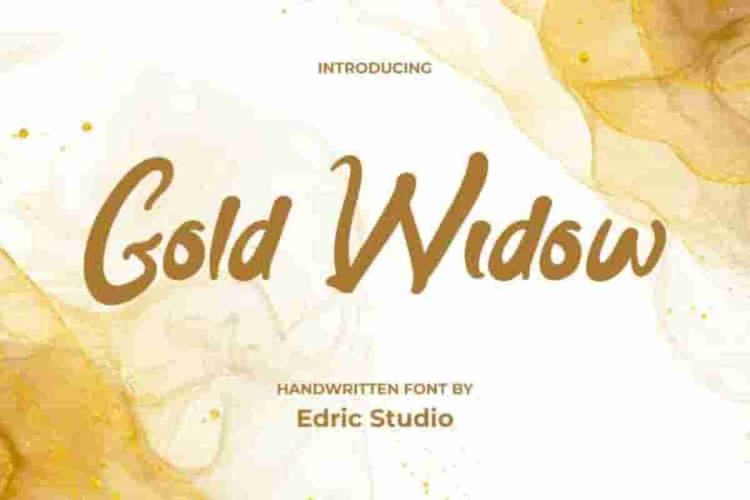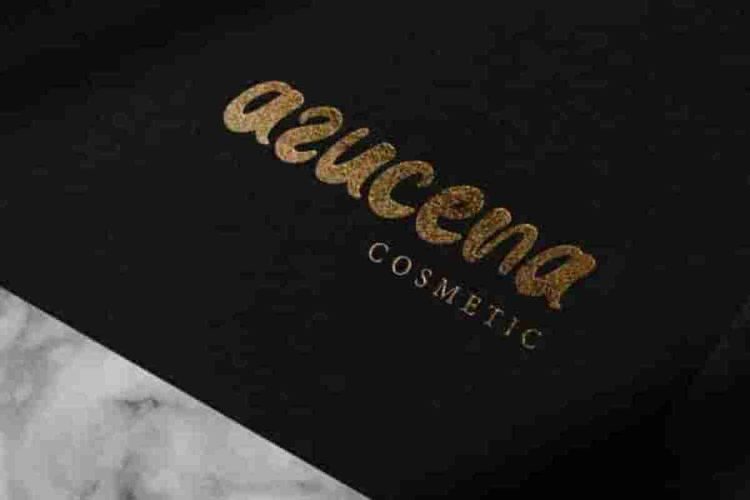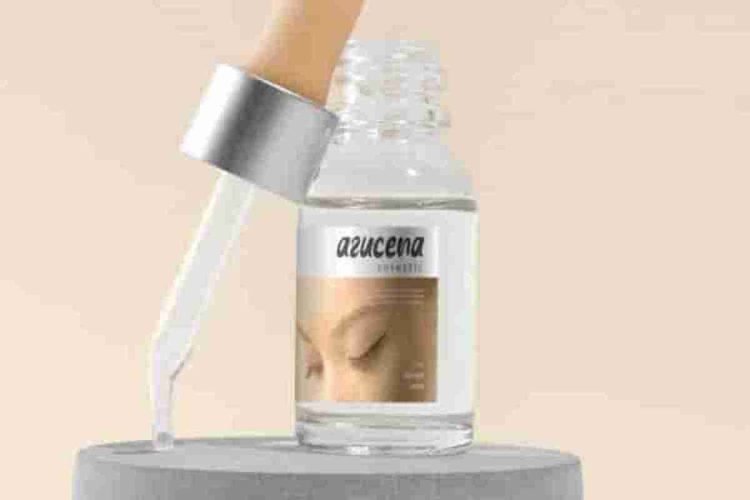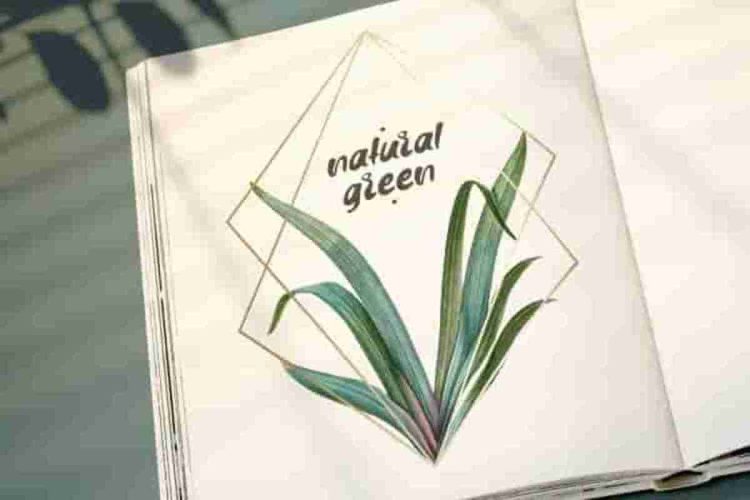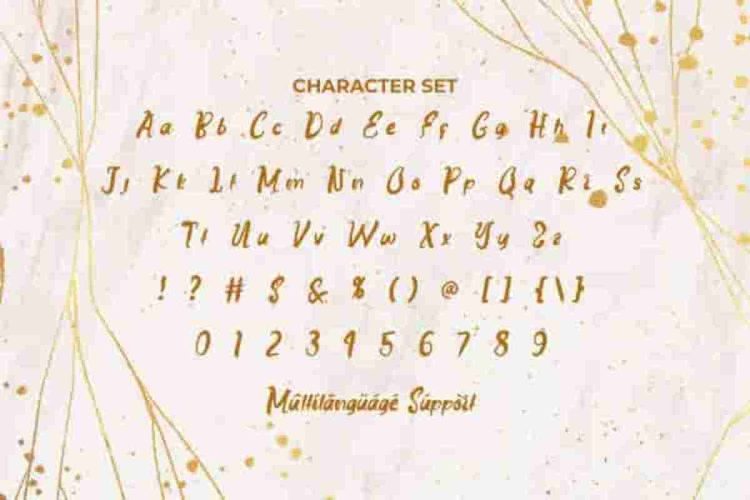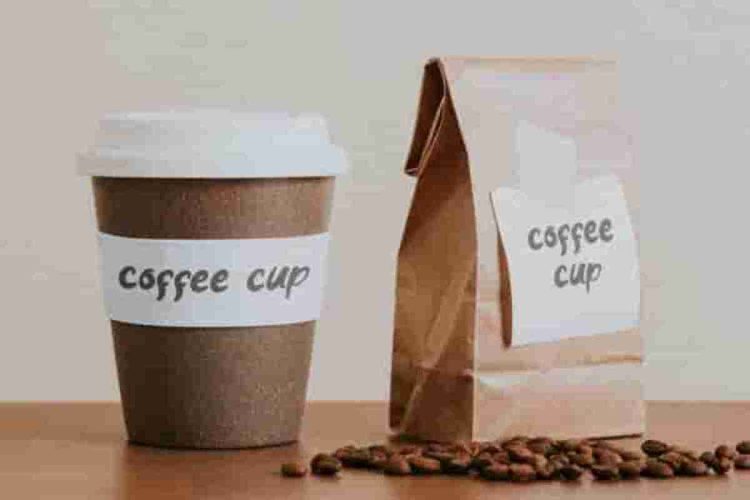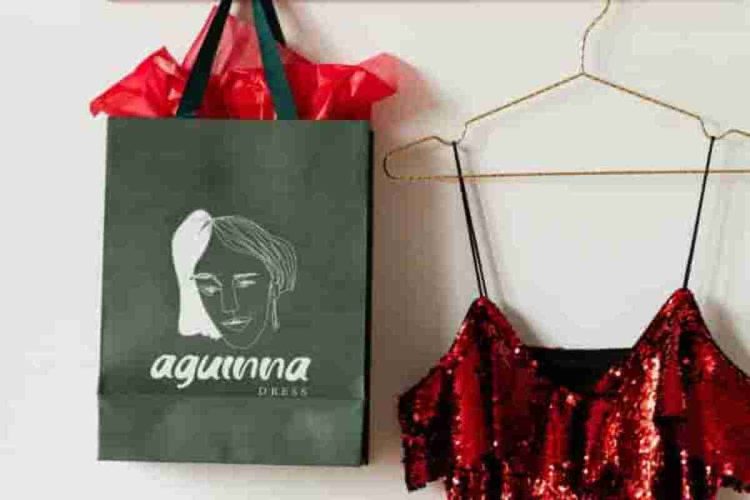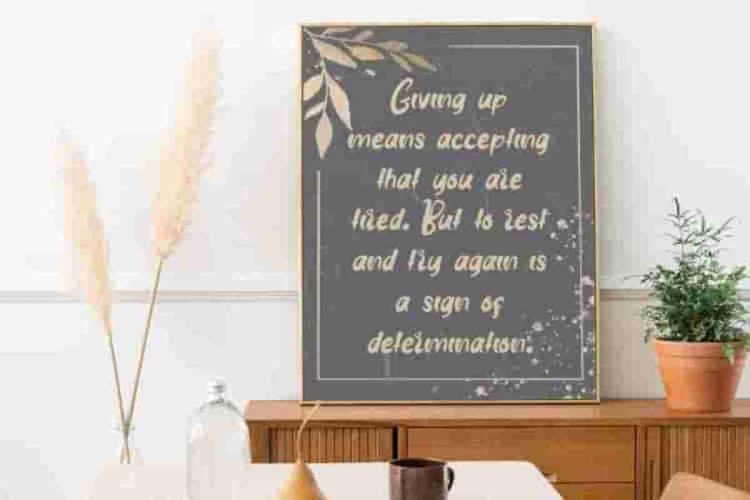
Gold Widow Handwritting Font a powerful handwritten typeface that blends bold strokes with a touch of messy elegance.
Gold Widow Handwritting Font comes with a full set of Uppercase and Lowercase Basic Characters, Number, Punctuation and Symbol. Make your project feel specially handmade with this collection of fonts, adaptable to a variety of industries such as ads, architect, boutique, café, content creator, cosmetic, fashion, furniture, graphic design, handicraft, homeware, ornamental plant, party or festival event, printing, publishing, retail, skincare, writer, and anything that requires the appearance of a beautiful bold font.